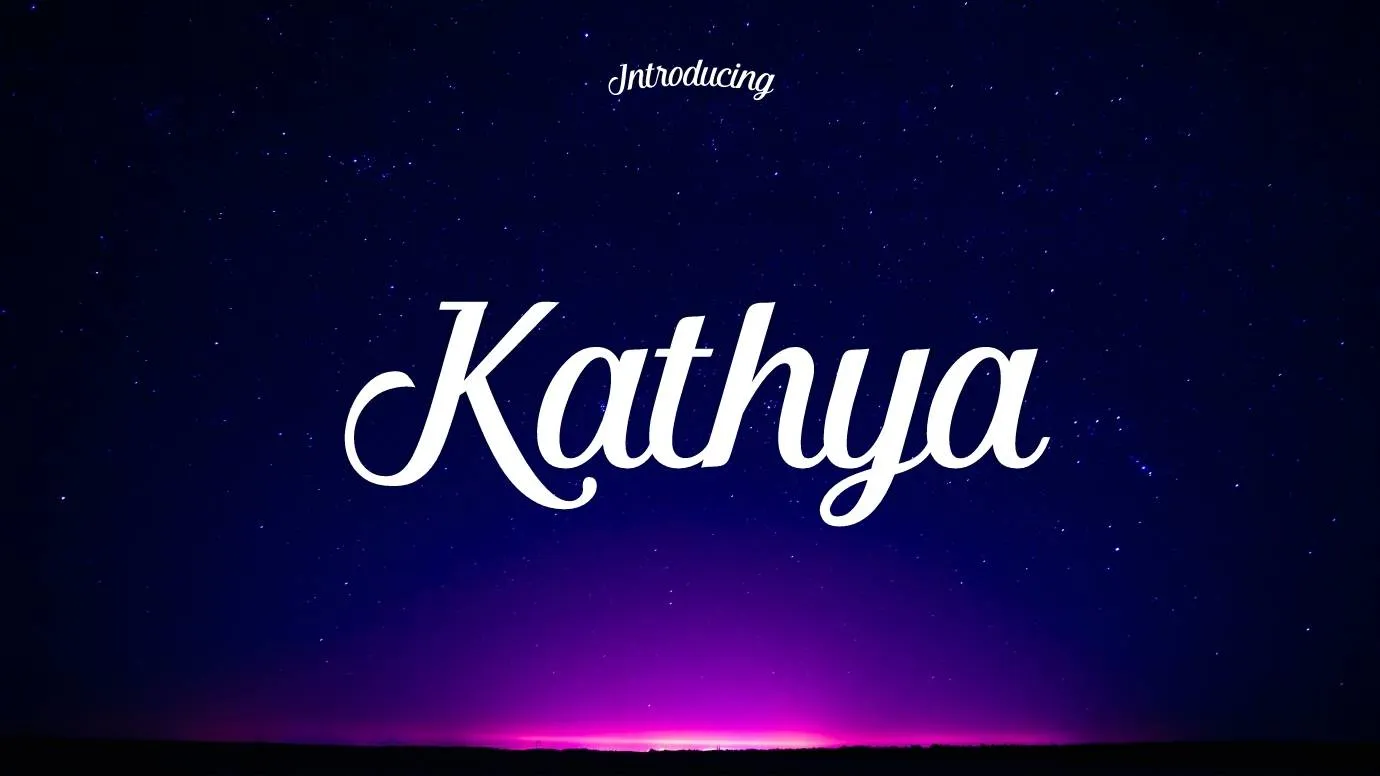
Font Introduction
Kathya Font Family is a very cohesive and attractive-looking typeface. Seniors Studio works hard for the creation of this classic typeface. This awesome typography is a combination of sans serif and script family of fonts. Mainly it lies in the category of the script family of fonts. If you want to pair then Moraline font is well-suited for making proper pairing.
Kathya font is very astonishing that this typeface has a lot of advanced characters, 430 unique and gorgeous glyphs, and 176 alternate. The stylish characters of this typeface with long and cohesive swashes make designs wonderful. This texture contains both uppercase and lowercase letters. One more beneficial thing is that this typeface is available in OTF, TTF, Woff, and Svg file structures.
Features of Kathya Font
- This awesome typography is also the best choice for project branding, posters, banners, and so on related purposes. This font family is appropriate for website designing and other related design projects.
- If it is your desire to use any font for t-shirt designs, clothing designs, and other high-quality products then you can easily choose this typeface.
- This family is also good for thumbnail designs, web pages, template designs, and many other relevant design projects.
What is the type of Kathya Font?
This stylish typeface belongs to the category of calligraphic script typeface. It is a combination of sans serif and script family of fonts.
What font is an alternative to Kathya Font?
Hollyn Font is an alternative to this typeface in different terms and appearance.